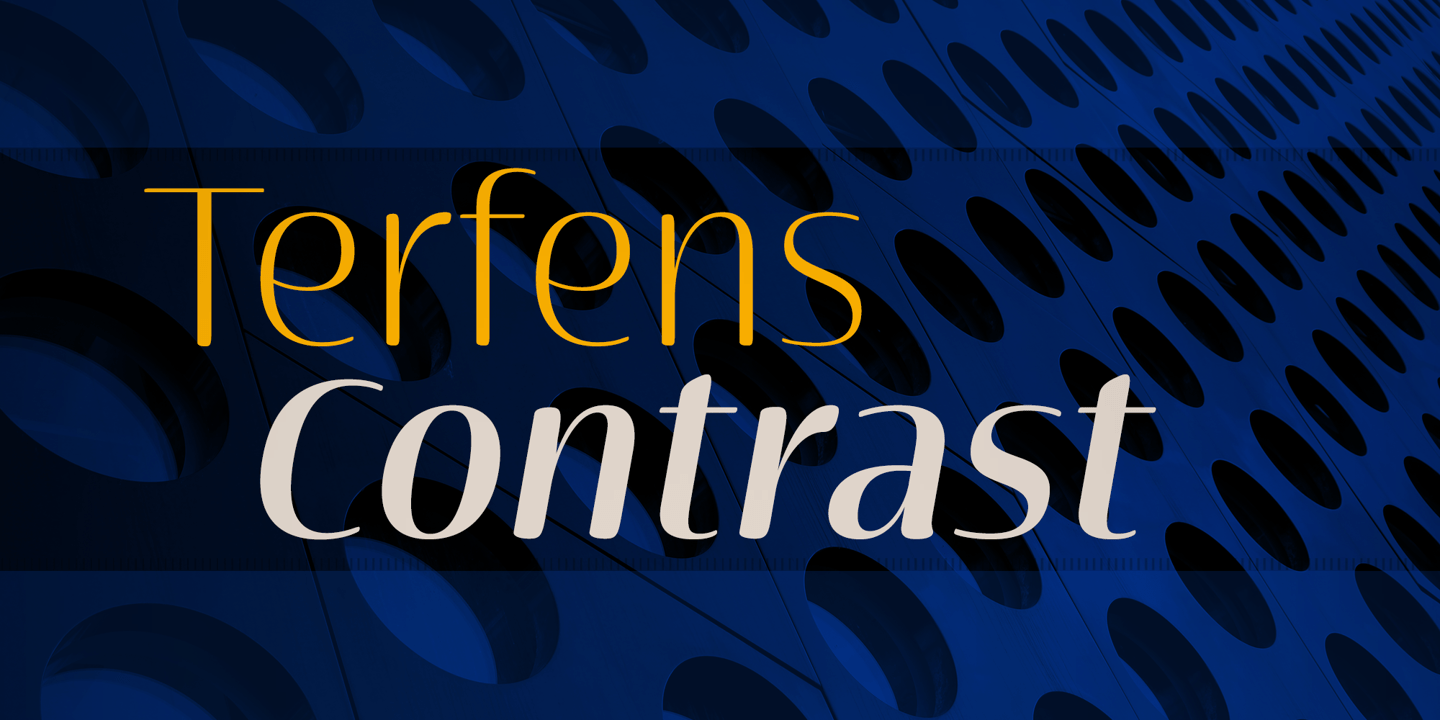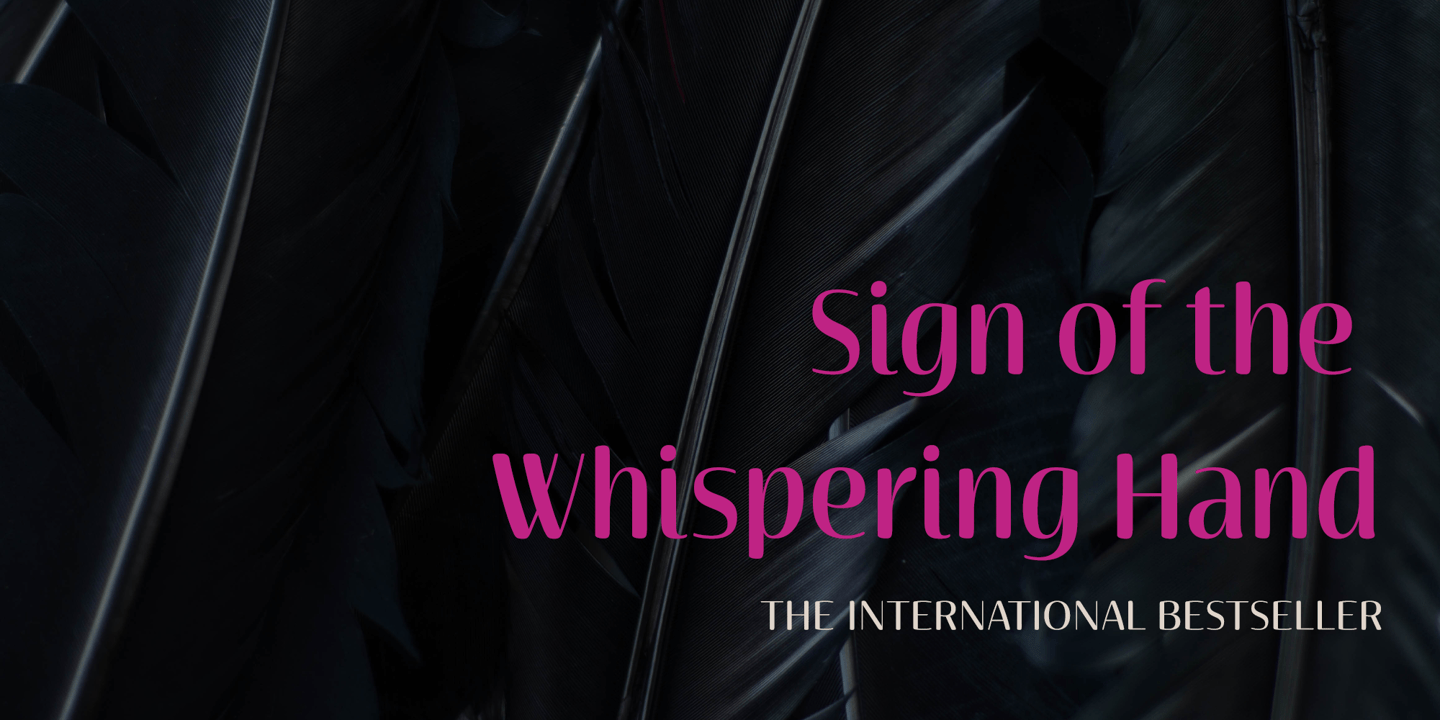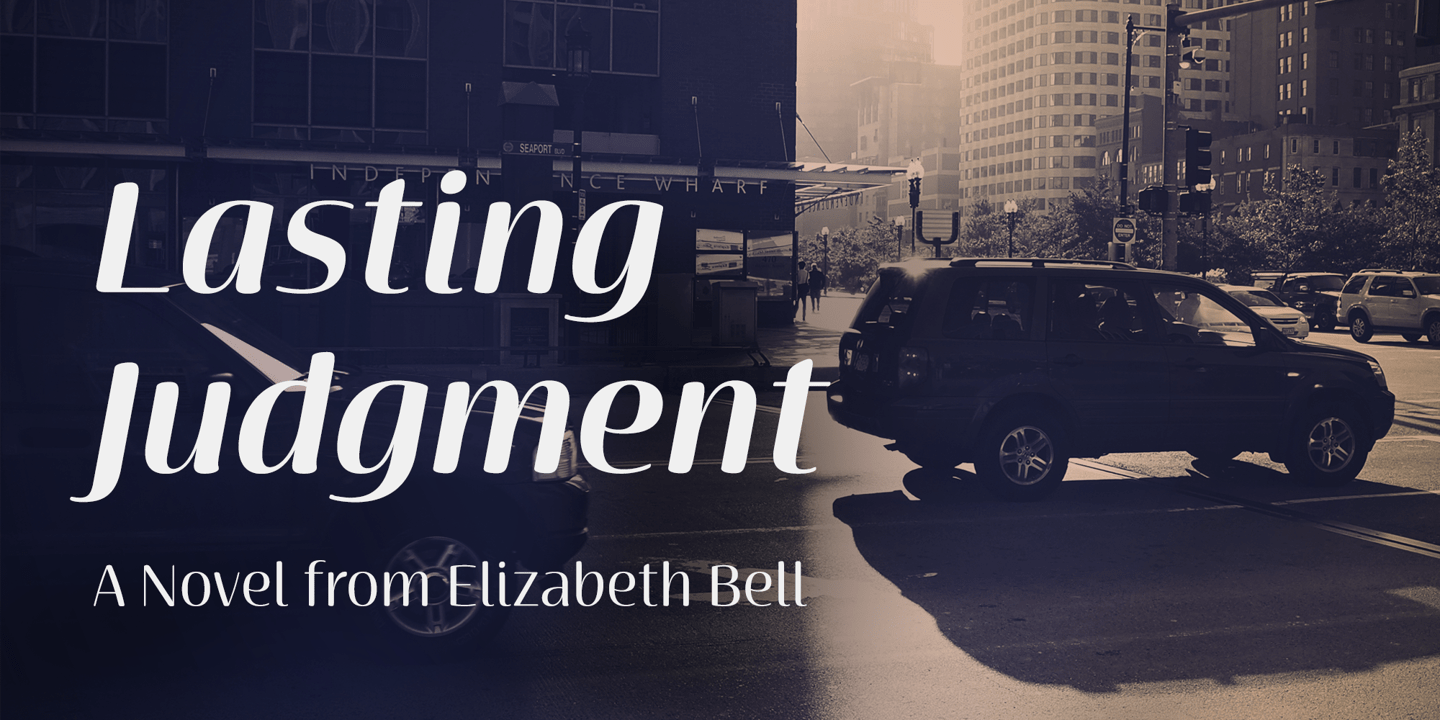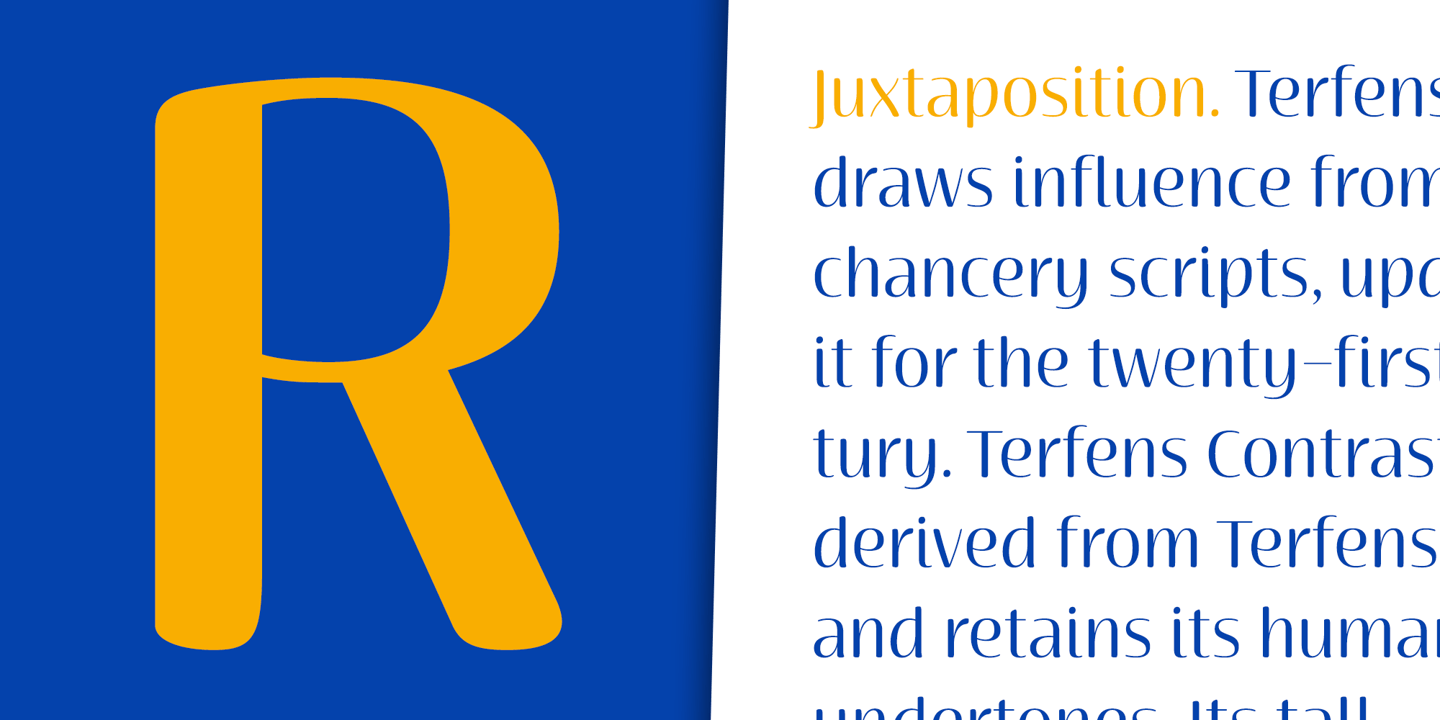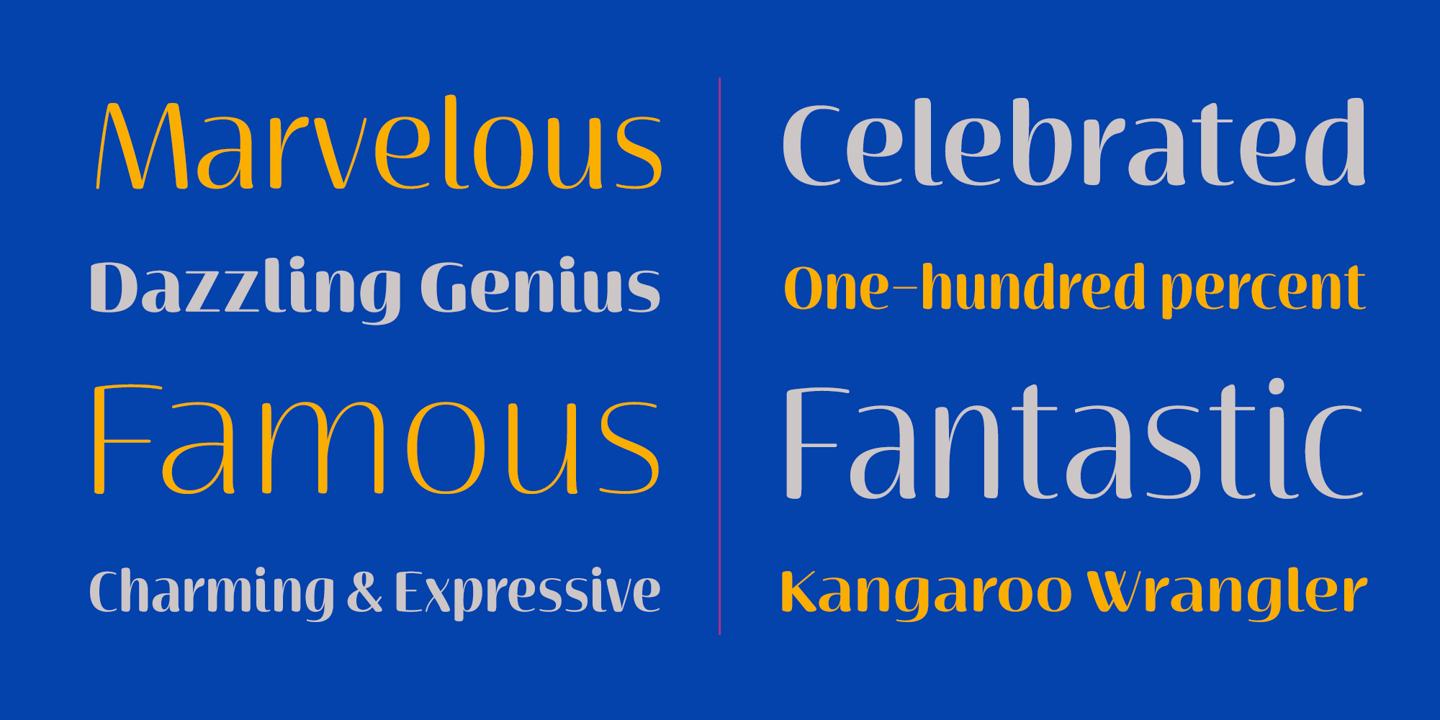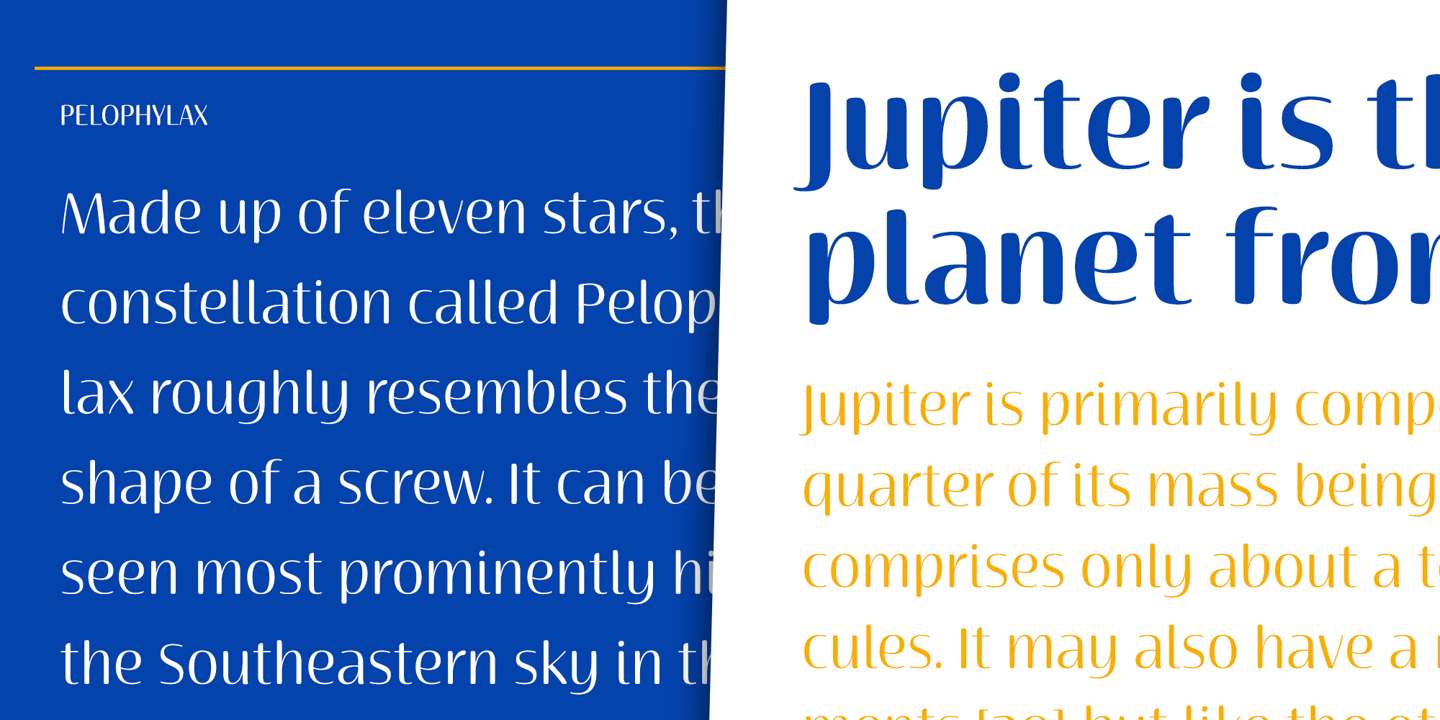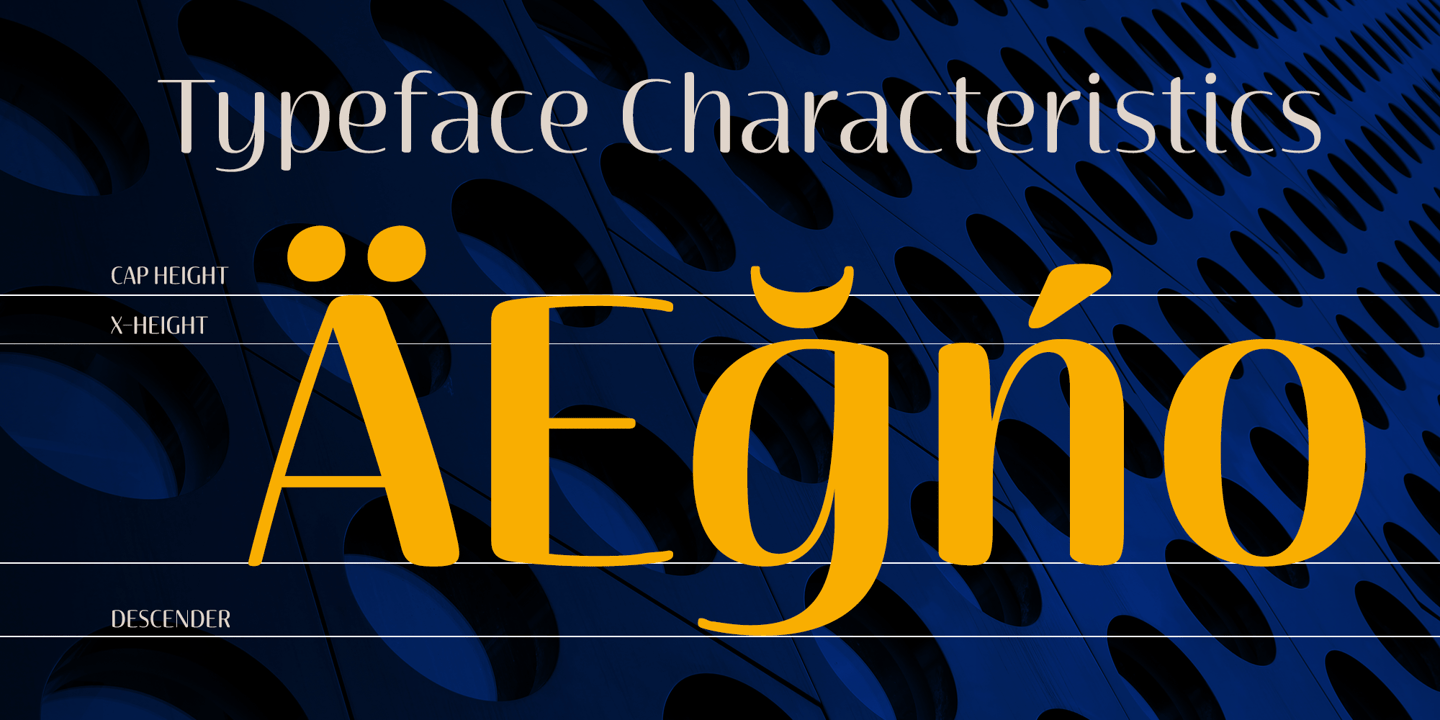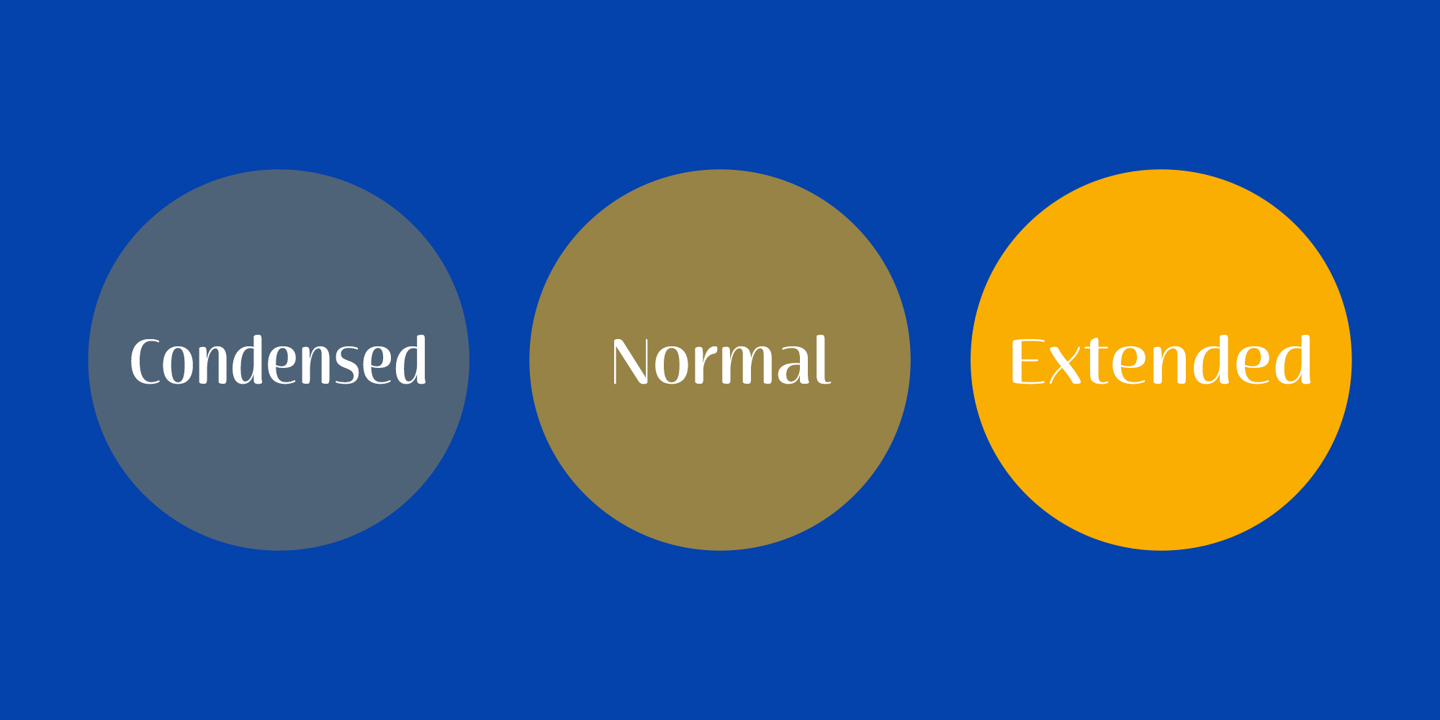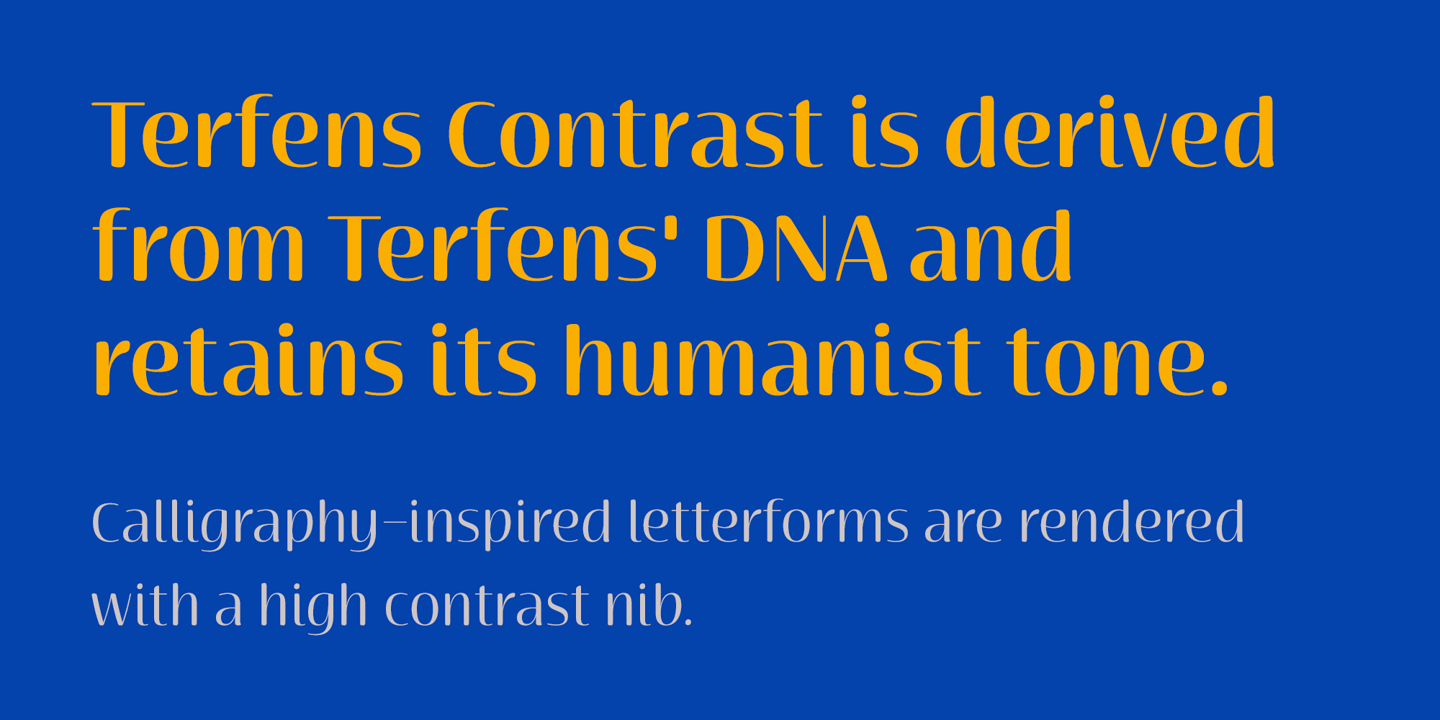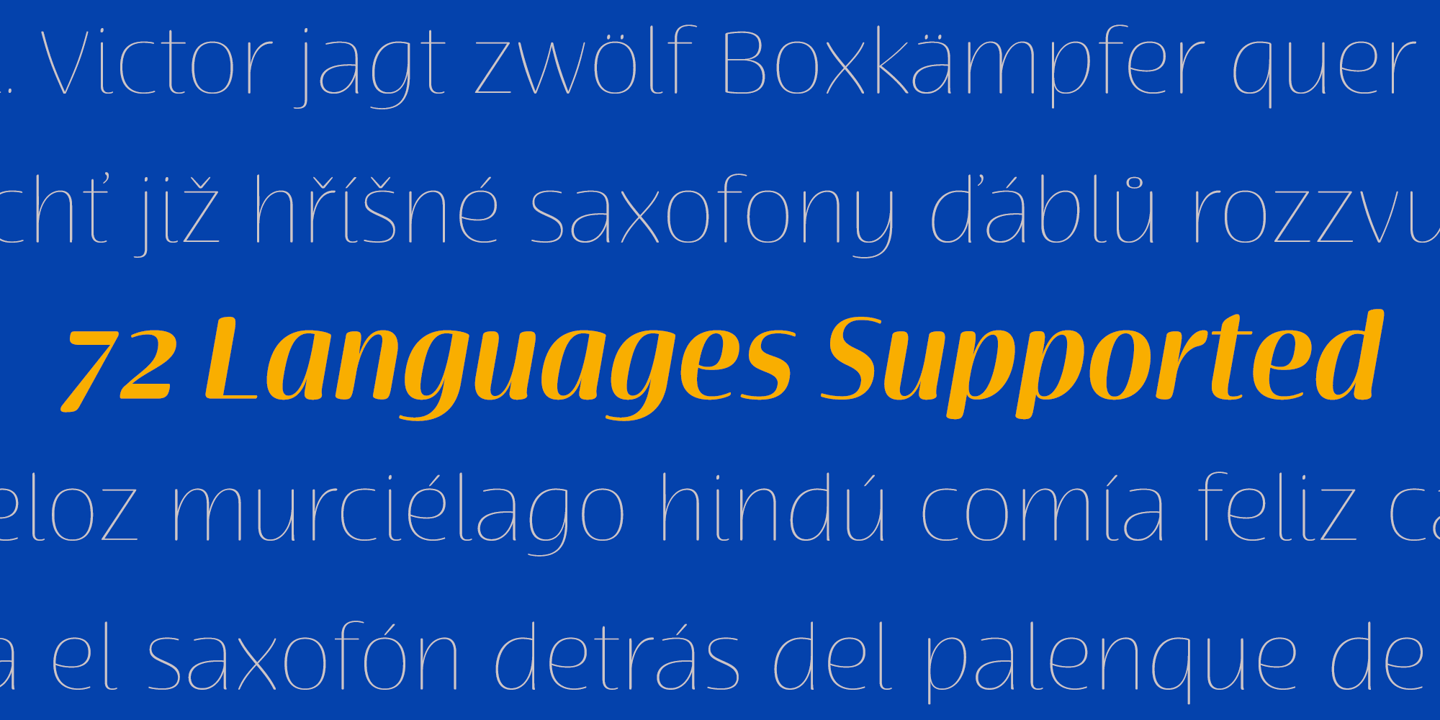
Terfens Contrast
Terfens draws influence from chancery scripts, updating it for the twenty-first century. Terfens Contrast is derived from Terfens' DNA and retains its humanist tone. It's tall x-height gives it a friendly but not informal feel.
With Terfen Contrast, calligraphy-inspired letterforms are rendered with a high contrast nib, lending raw vitality and expressivity. This juxtaposition gives the letters a sense of firmness and energy, but also of heavenly, delicate beauty.
Terfens is a full-service branding and packaging solution, containing a lot of personality, combining the passion of a broad nib pen with the beauty of a brush. Terfens is a "workhorse typeface" comprising 48 typefaces in three widths and eight weights. There are ligatures and swashes in all weights, as well as support for more than 72 languages. Another powerful typeface to add to your collection of eye-catching fonts.
? Recommended uses: modern branding and logo design, powerful editorial design, exciting packaging, and a wide range of additional jobs.
? 54 font styles, including eight weights, eight italics, and three widths.
? Each weight has 500+ glyphs.
Useful Opentype features include: Access All Alternates, Discretionary Ligatures, Denominators, Fractions, Kerning, Standard Ligatures, Lining Figures, Numerators, Oldstyle Figures, Ordinals, Scientific Inferiors, Subscript and Superscript.